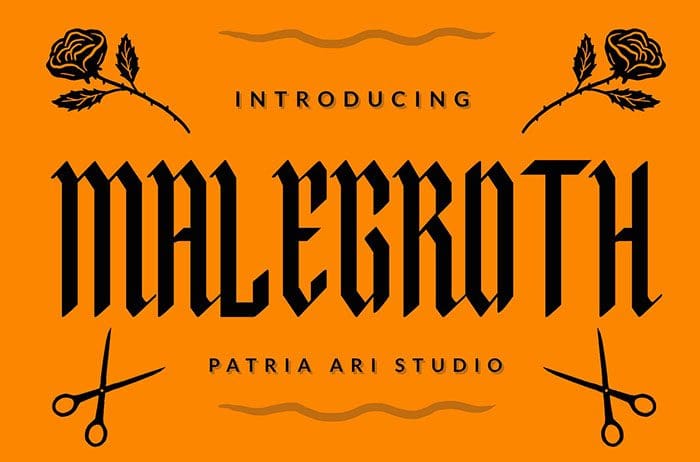
Malegroth is a Blackletter Font with high shaped characters to support your brand/project. It is perfect for projects such as logos & branding, headlines, posters, signage, label, watermark, special events or anything. Thanks to Patria Ari Typestudio for sharing this font! Take a look at this portfolio for more of his stunning fonts.